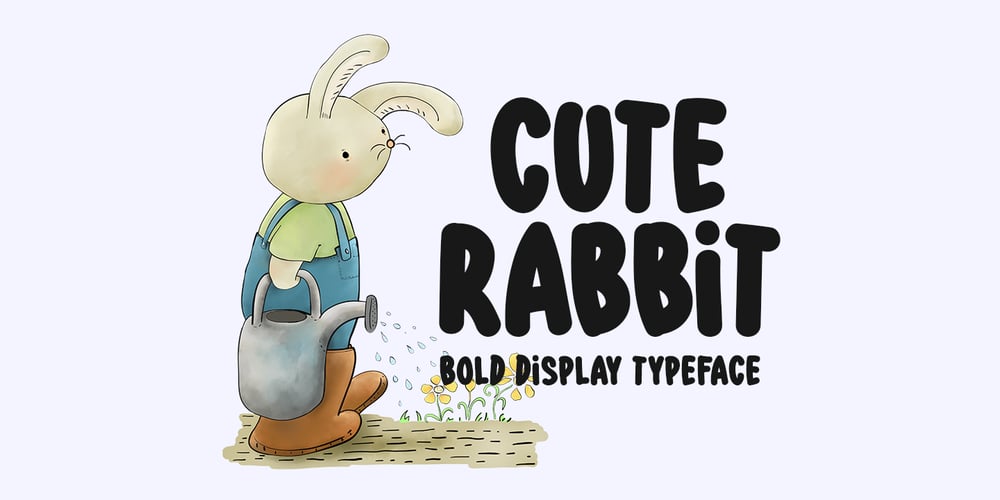
Cute Rabbit Font Family was designed by Md Shohail Bhuian and published by Seemly Fonts. Cute Rabbit contains 1 styles and family package options. Cute Rabbit is a friendly and sweet display font. It is perfectly suited for stationery, logos, t-shirt, paper, print design, website header, photo frame, flyer, music cover, poster, image slider, and much more.